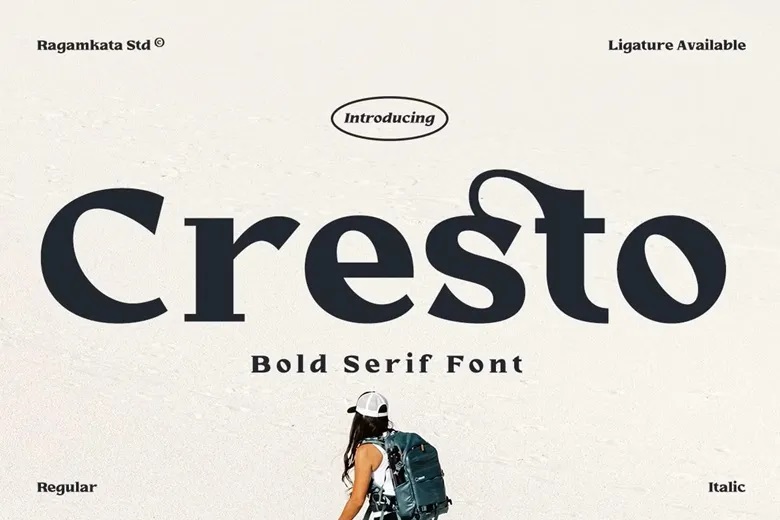
Cresto Font
Cresto is a bold serif typeface that is meant to be used to produce a solid visual impact with a sleek, contemporary look. With bold letterforms, flowing lines, and balanced lines, Cresto is a balance between the traditional serif architecture and a modern boldness. Its solid presence is essential to use in headlines and display but also in readable and versatile to various design requirements.
The font is utilized in branding, logos, headlines, editorial design, magazine layouts, posters, advertising, web page titles, social media artwork, packaging work, book covers, product labels, company branding, marketing, materials, modern print design etc.
Cresto Serif Font